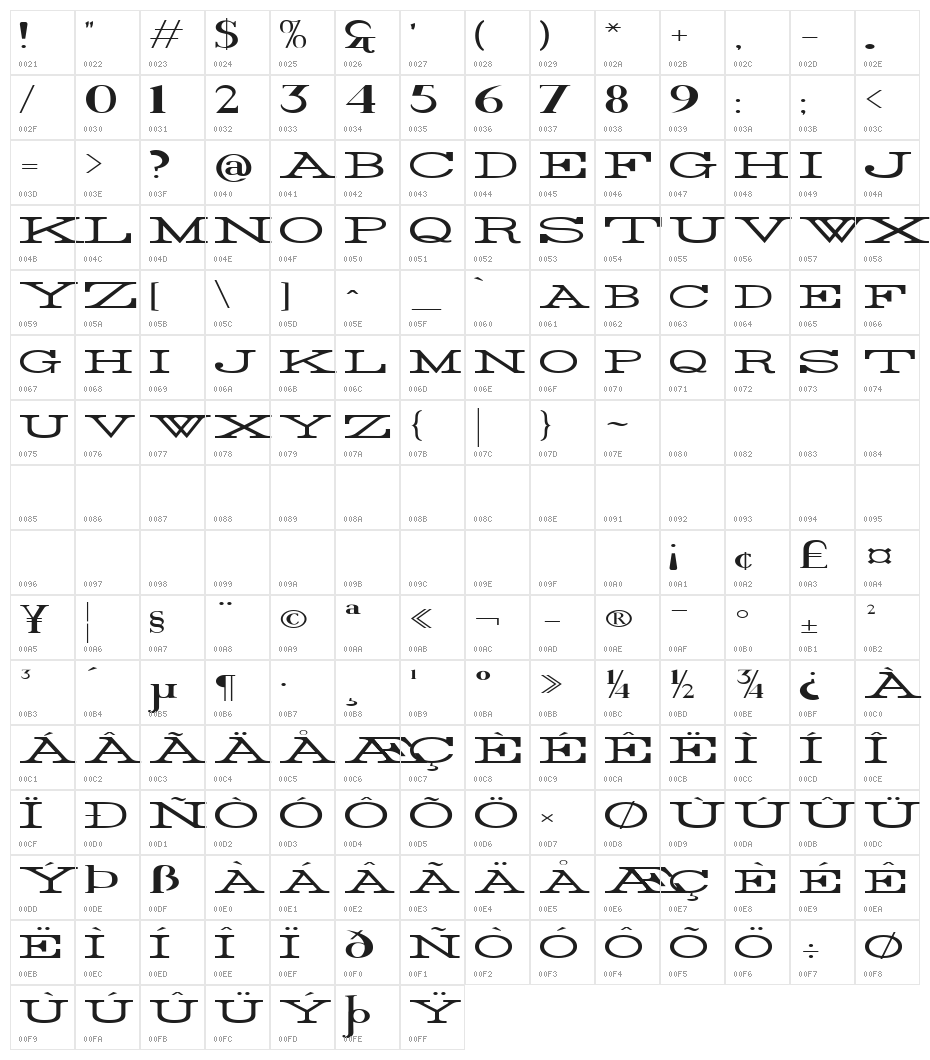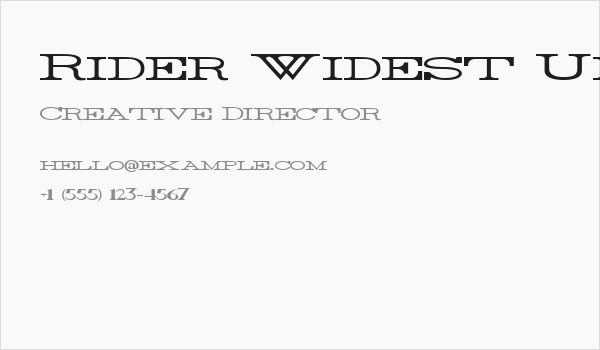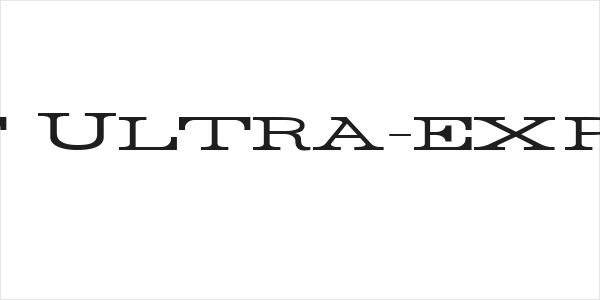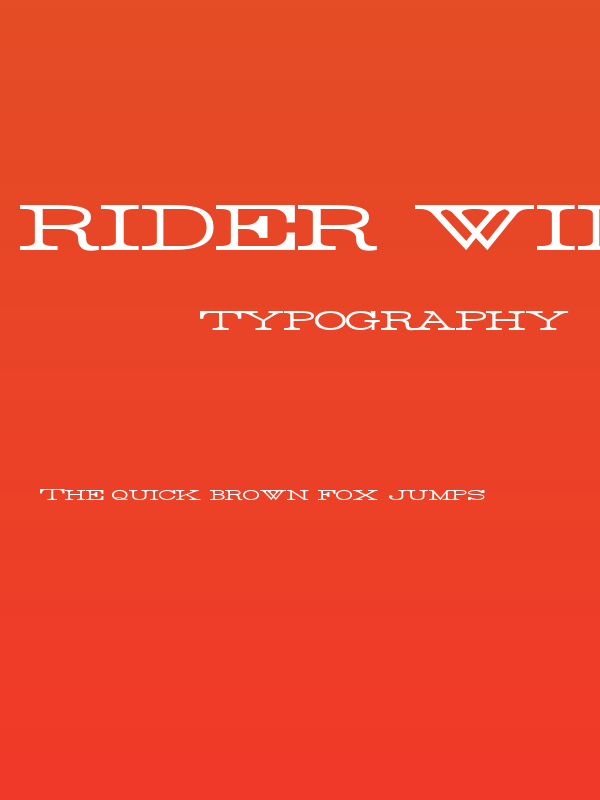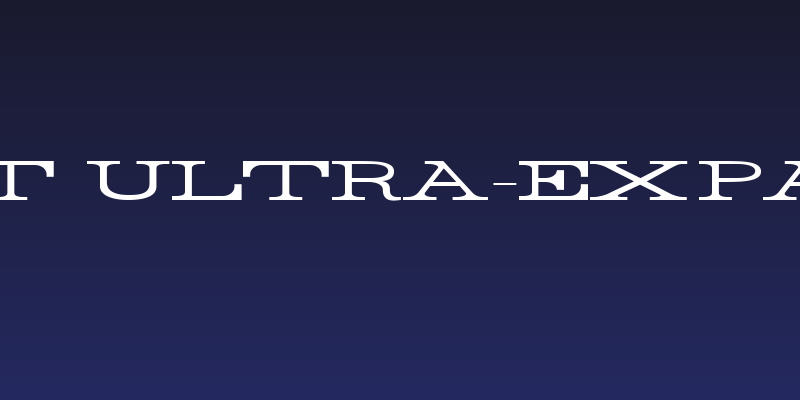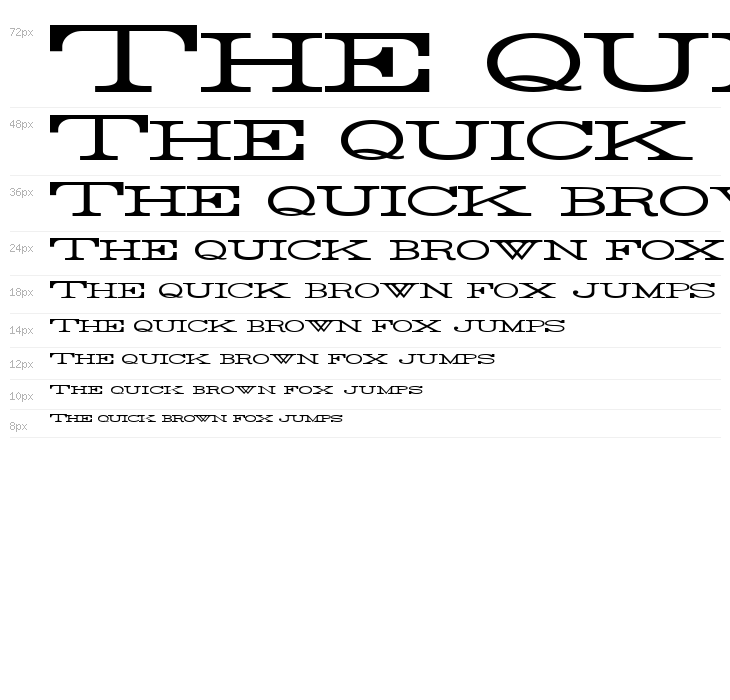
Rider Widest Ultra-expanded Light Font
Rider Widest Ultra-expanded Light Description
This font is a striking example of ultra-expanded typography, characterized by its wide letterforms and light weight. The uppercase letters exhibit a bold presence with sharp serifs and a modern aesthetic. The lowercase letters maintain a consistent style, offering a harmonious blend with the uppercase. The numerals are distinct and easily readable, featuring the same expanded style. Special characters are elegantly designed, adding a touch of sophistication. This font's unique style makes it ideal for projects that require a strong visual impact, such as branding, headlines, and advertising.
| Proposed Projects | Ideal for branding, headlines, advertising, and any project requiring a strong visual impact. |